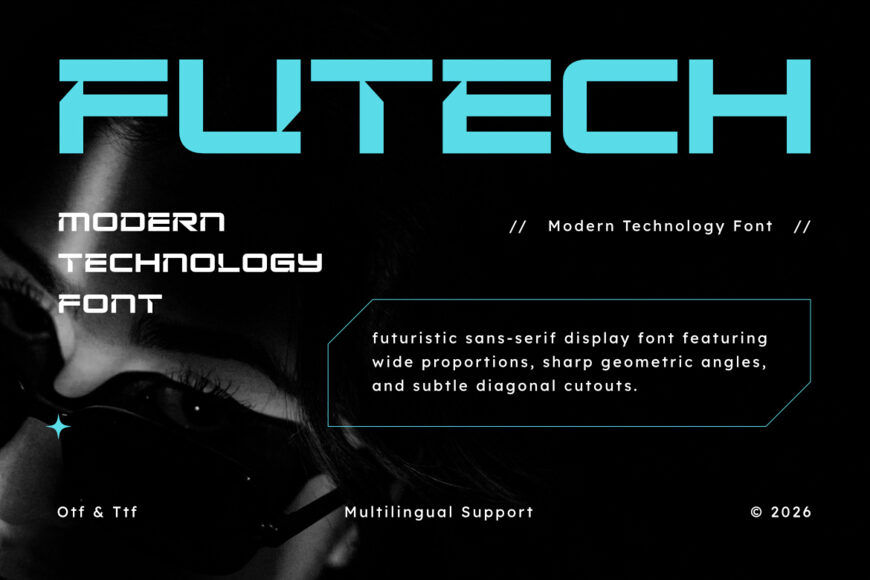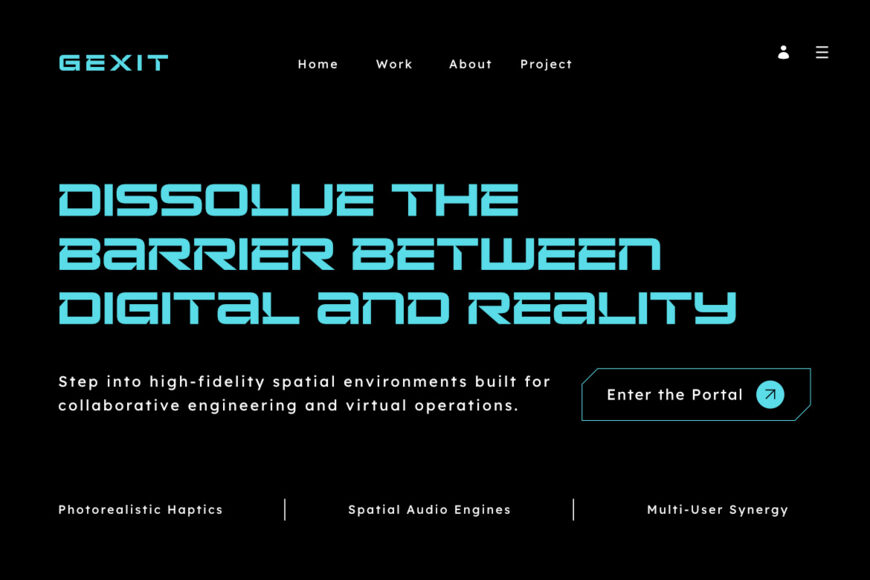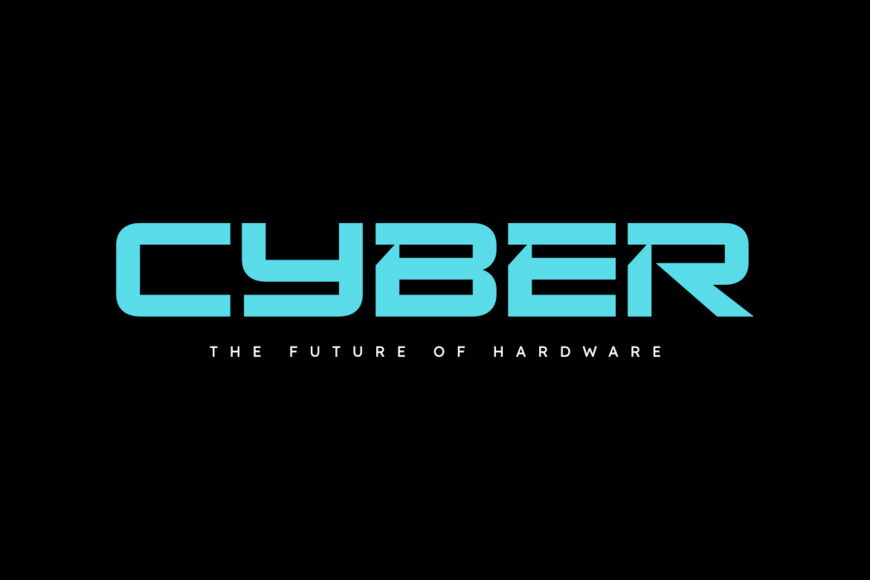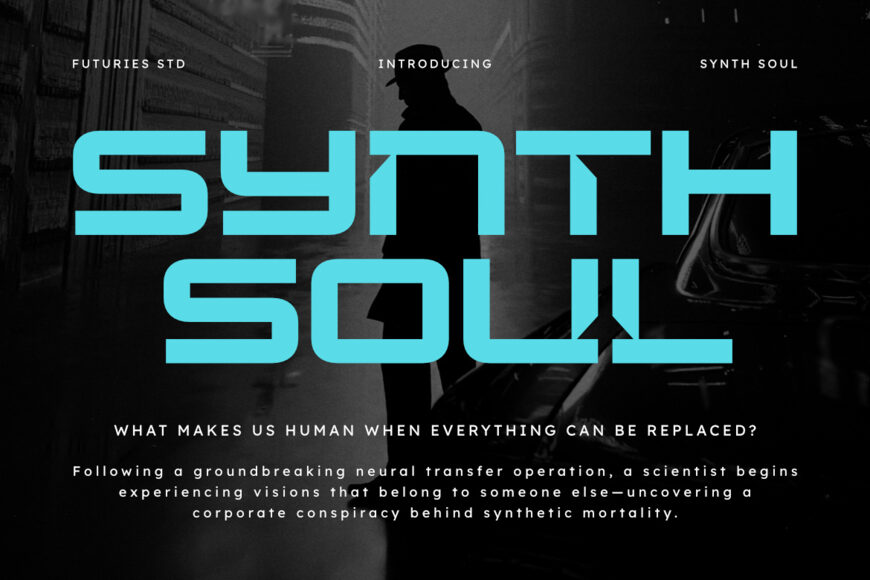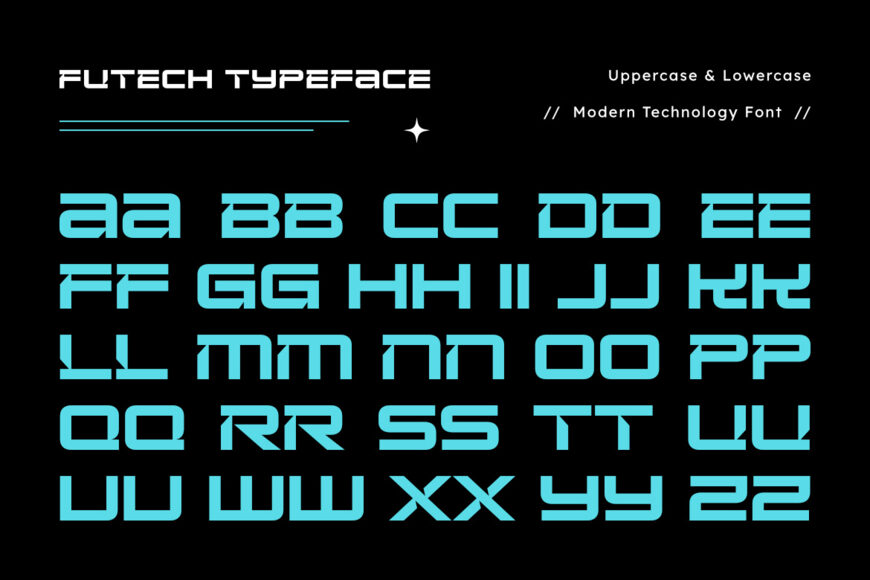
Futech Font
Introducing Futech, a Modern Technology Font with Futuristic Style, suitable for creative and modern lifestyle designs such as logos, advertisements, photo watermarks, stationery, branding projects, displays and magazines, invitations, corporate branding, product designs, labels, business projects and many other projects with a modern futuristic touch.